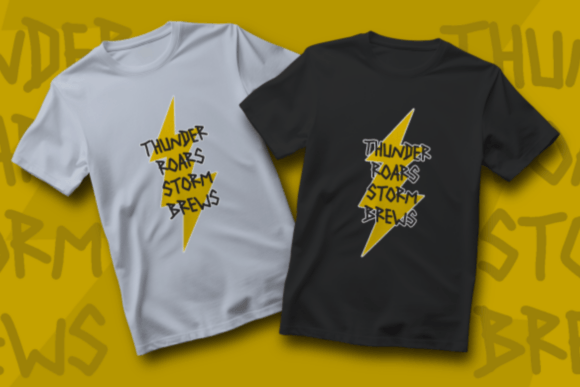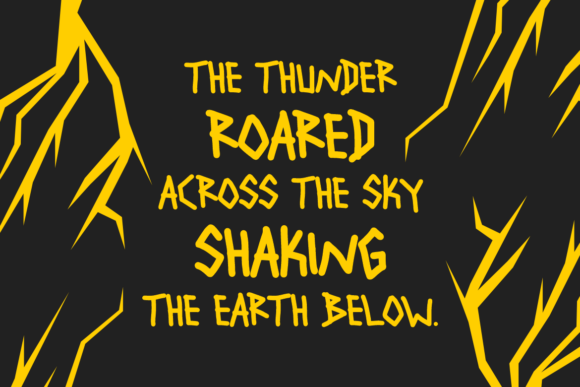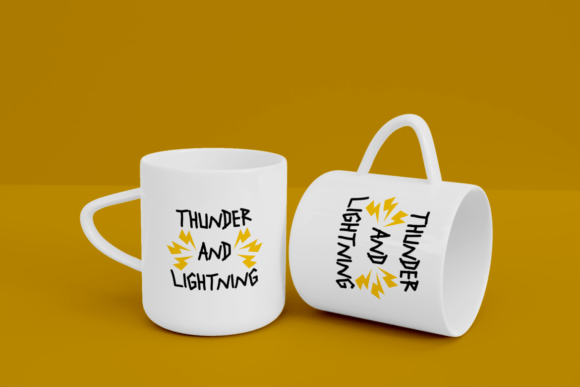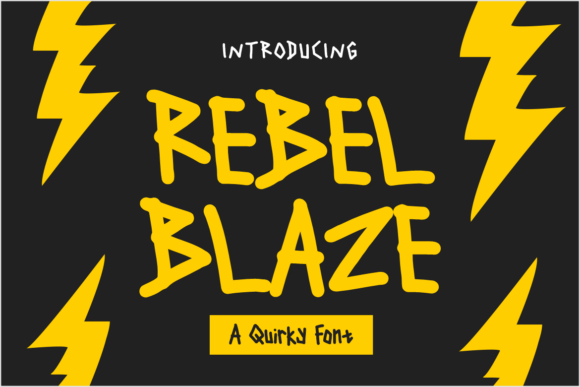
Introduction to Rebel Blaze Font
Rebel Blaze – Quirky Font Introducing Rebel Blaze – Quirky Font, a typeface that embodies the spirit of the streets with its bold and unapologetic style.
This handdrawn font takes inspiration from urban street art, blending rough scribbles with cool monoline lettering to create a display font that’s as rebellious as it is engaging Each stroke of Rebel Blaze captures the freestyle energy of graffiti artists and the boldness of an underground culture.